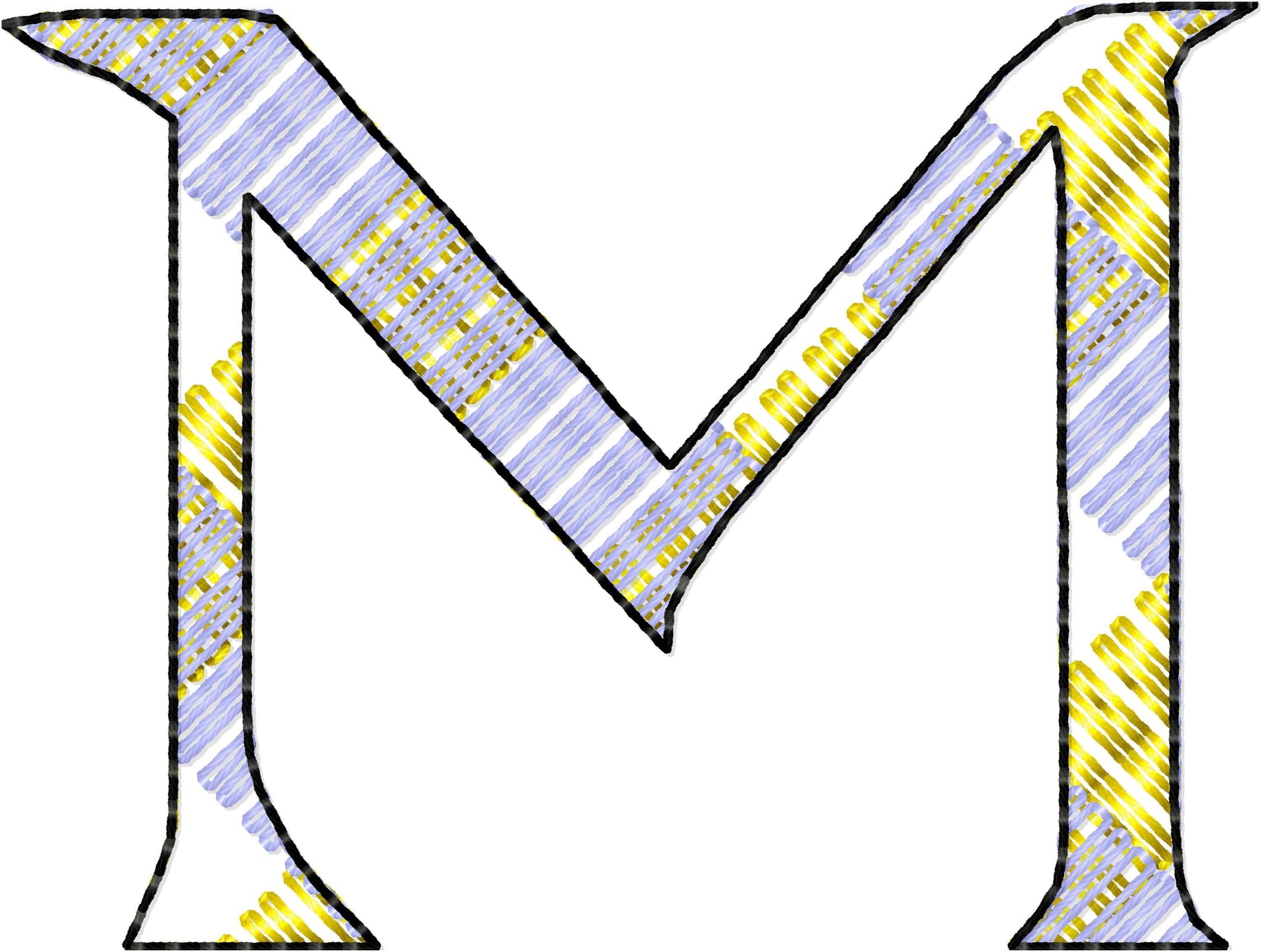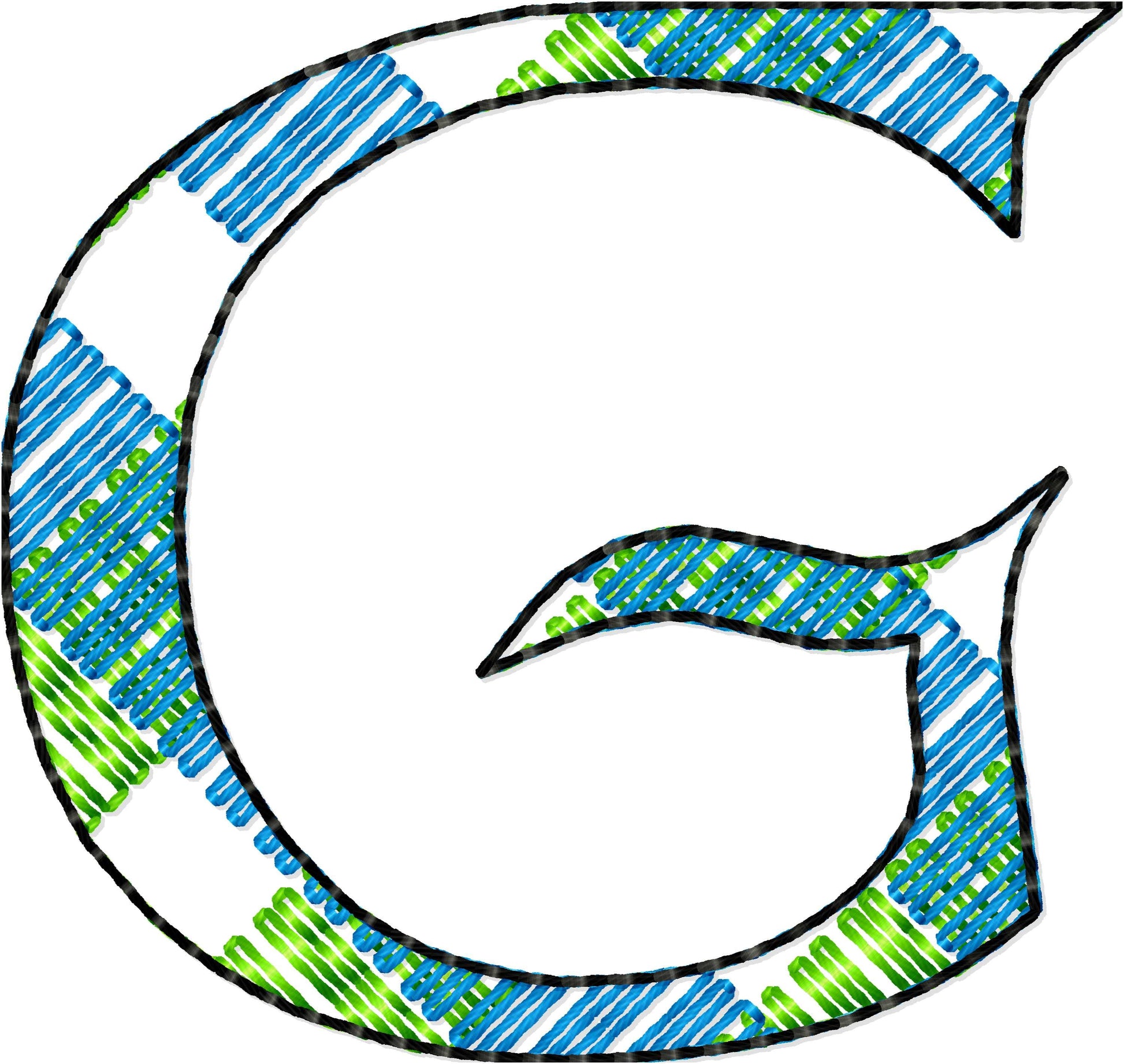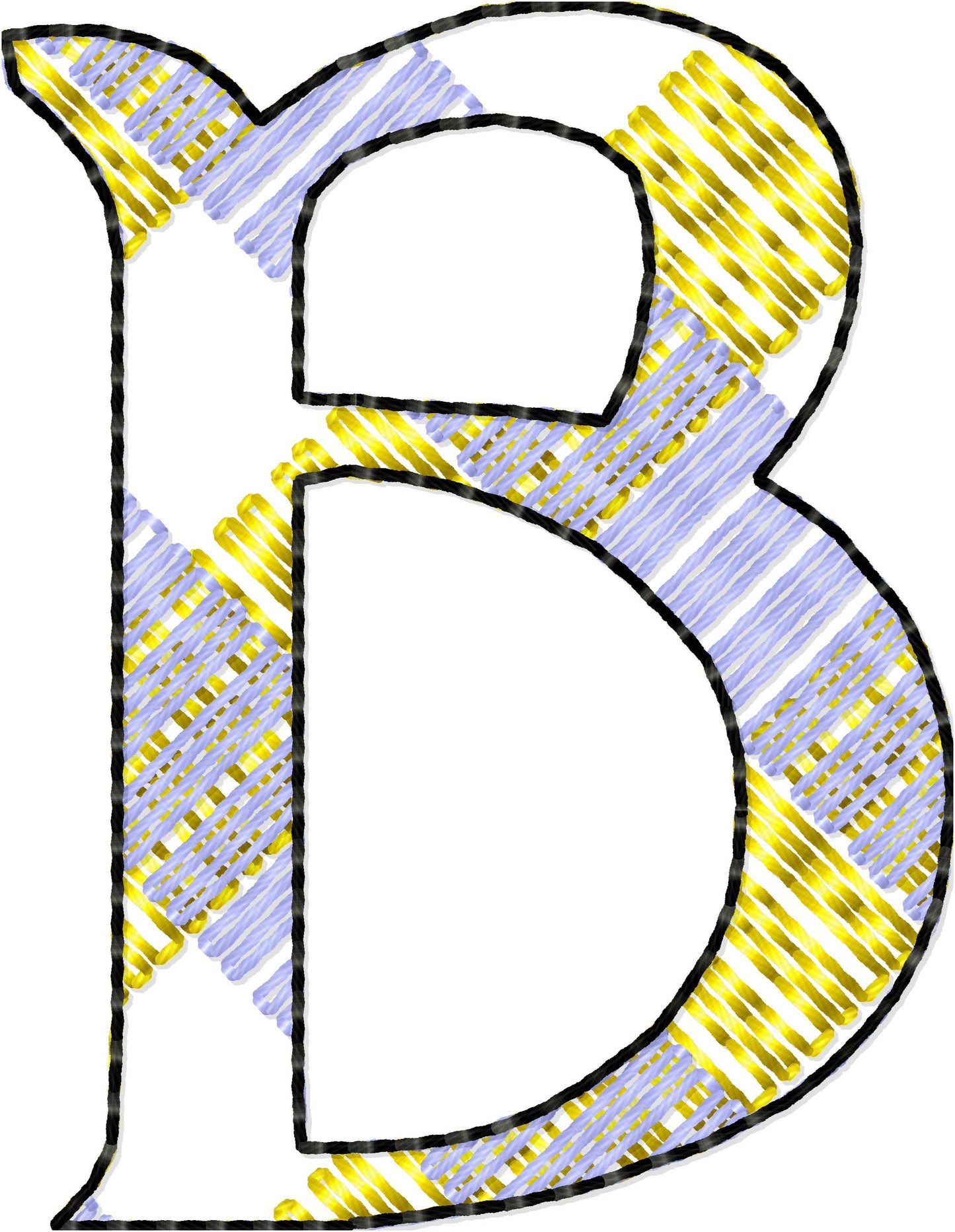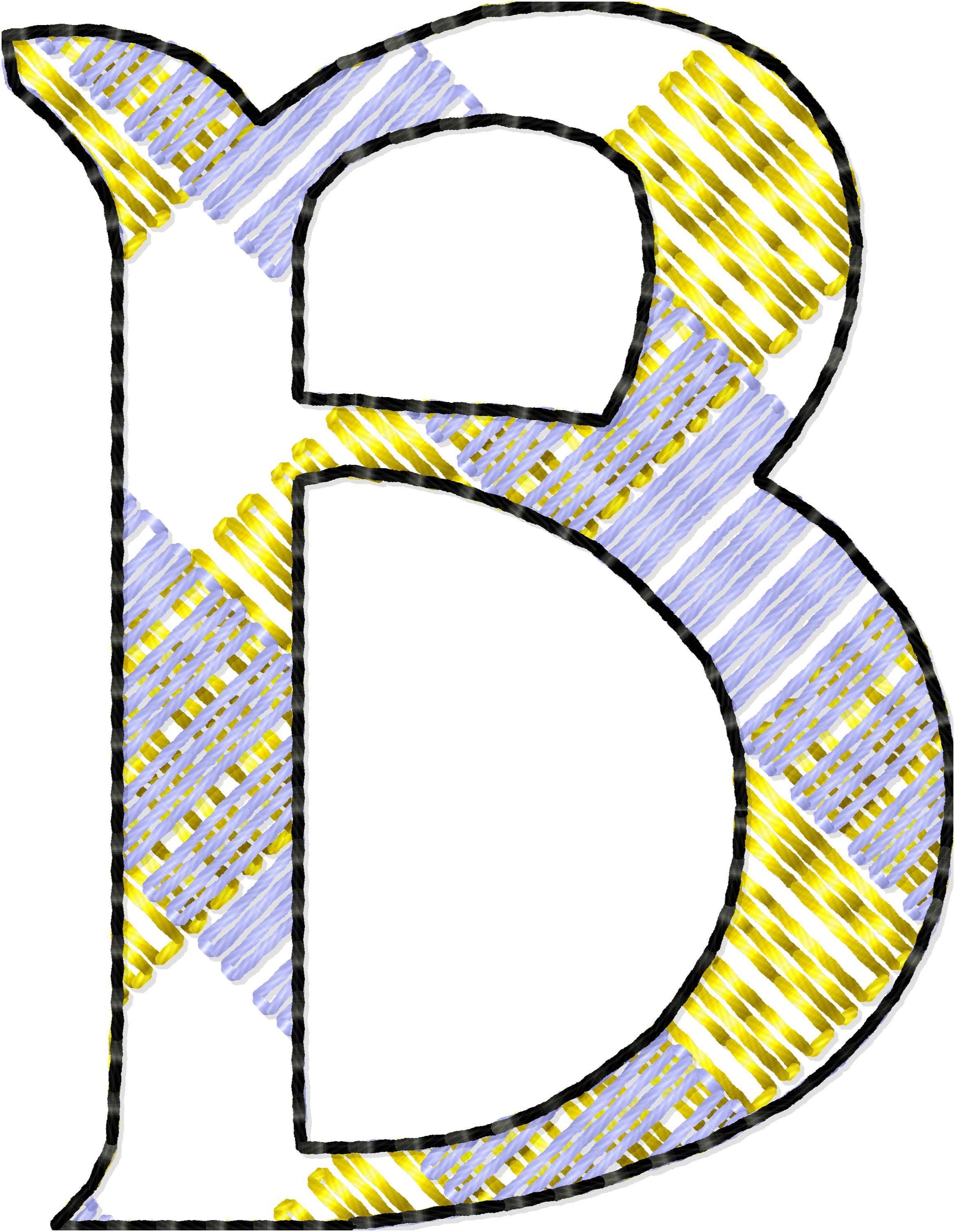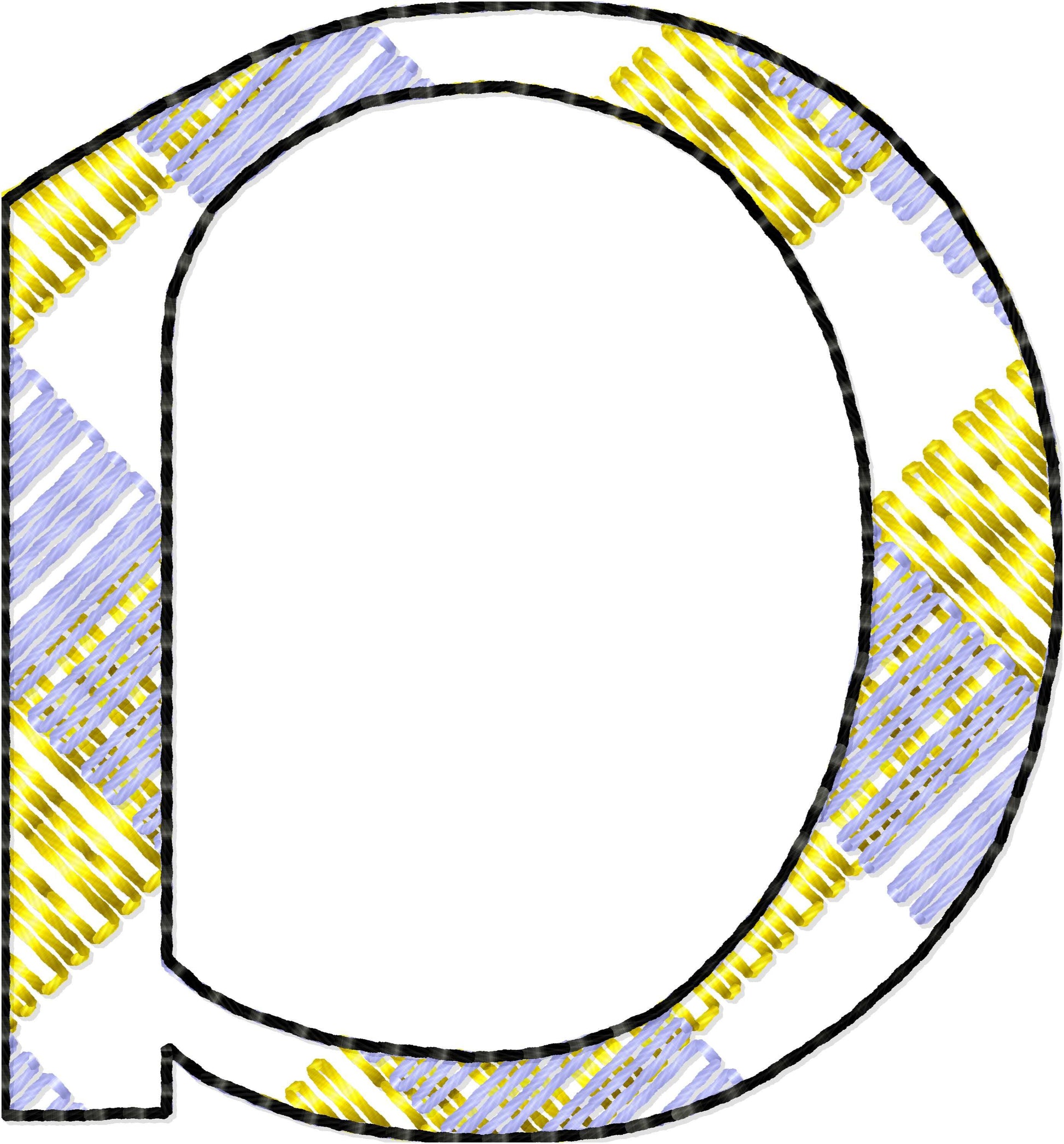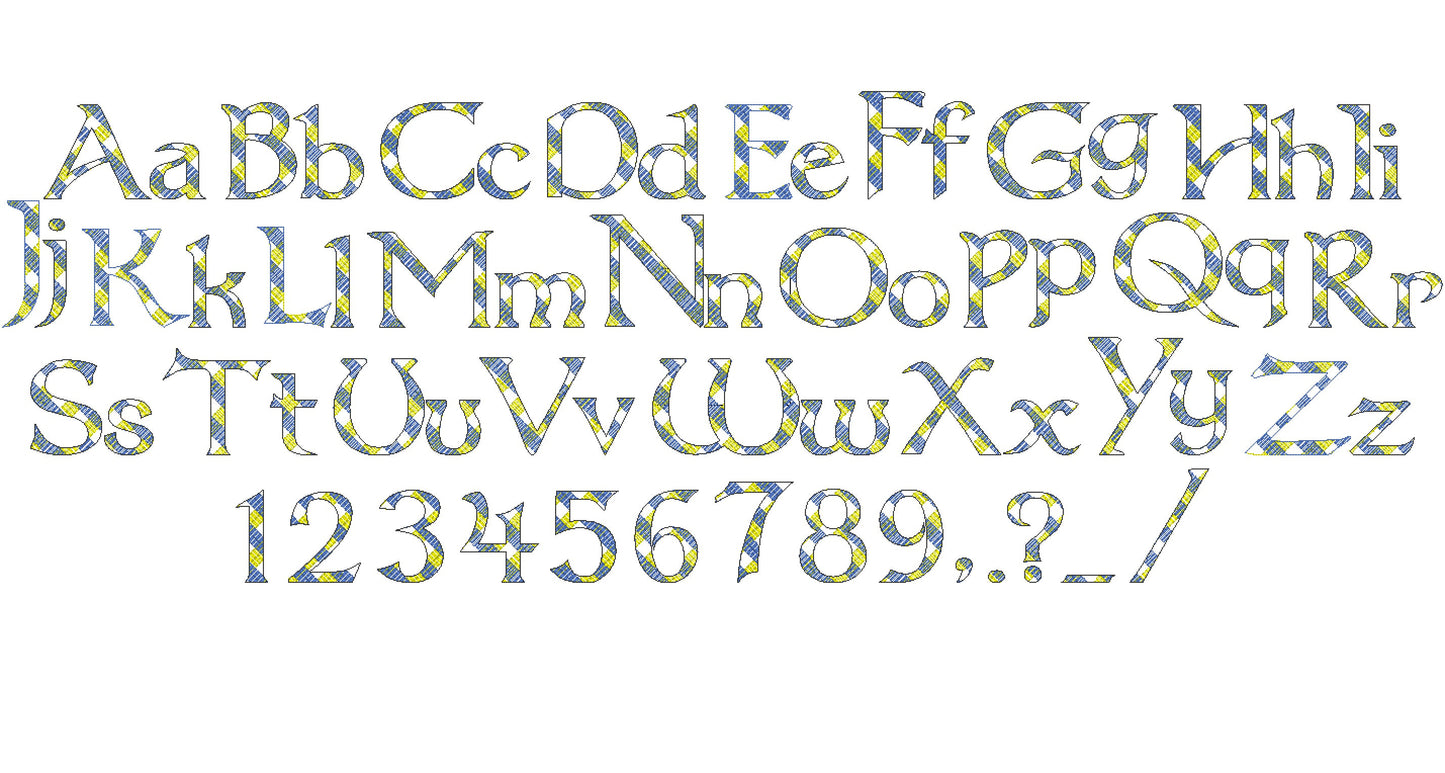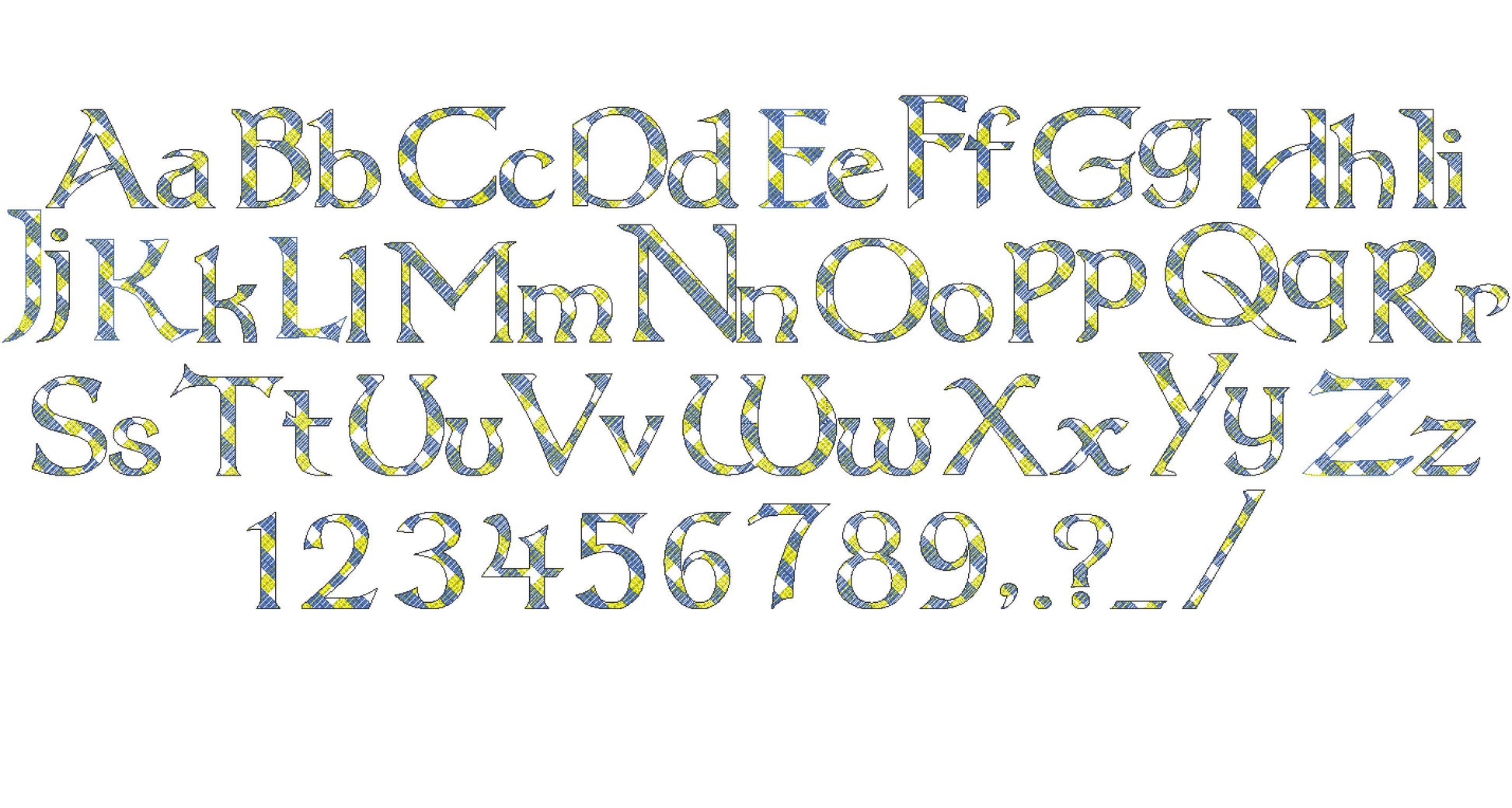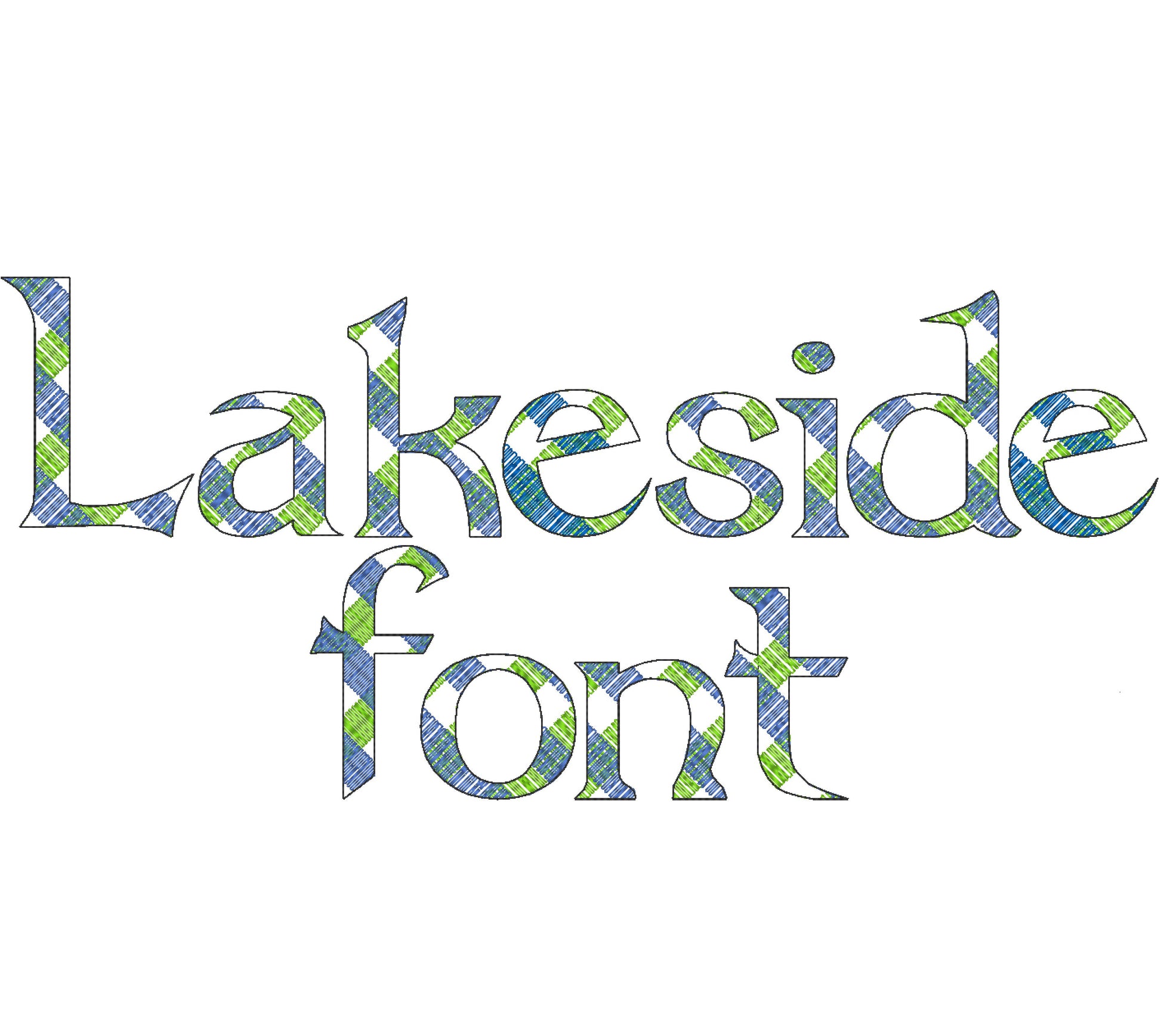
Buffalo Gingham Plaid Patterned Font Lakeside
Or click to open the linkLakeside, a buffalo gingham patterned font in quick light sketch stitching, so the fabric shows through the checks. Cozy for flannel-style shirts, pillows, stockings and names.
Uppercase and lowercase letters, numbers and punctuation, in eight sizes: 1.3, 1.5, 1.8, 2.2, 3, 3.5, 4 and 5 inches. The gingham lines are part of every letter.
- Buffalo gingham light stitch font
- Uppercase and lowercase letters, numbers, punctuation
- 8 sizes, 1.3 to 5 in